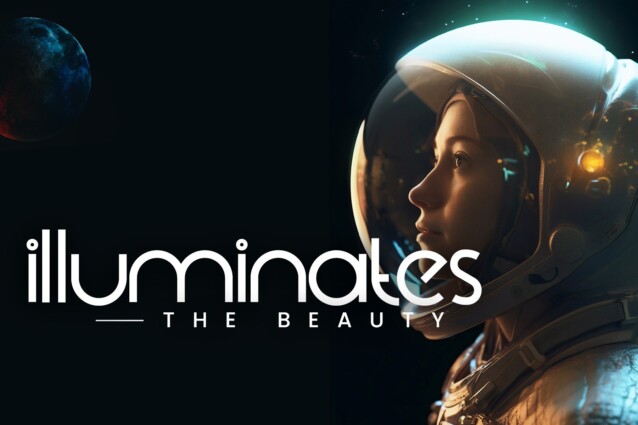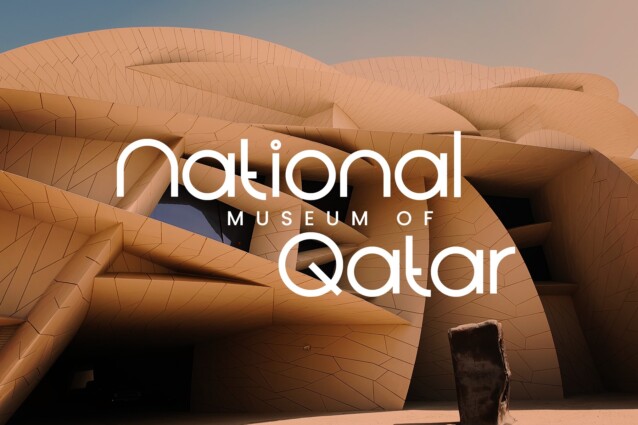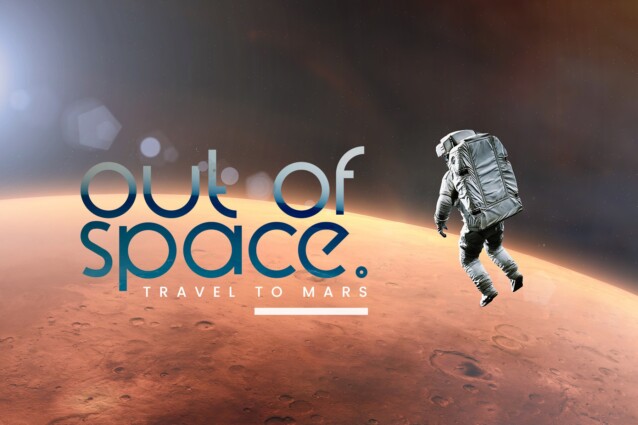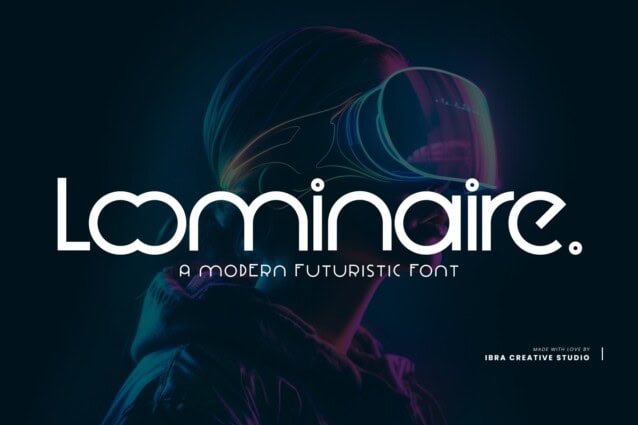
Loominaire Font
Loominaire Font is a sans-based typeface with futuristic hi-tech lowercase & uppercase that will make your design look futuristic and modern. Designed to make your designs stand out and leave a lasting impression, Loominaire brings a touch of sleek sophistication to your creative projects. With its clean lines and geometric precision, Loominaire exudes an aura of futuristic elegance. Each letter is meticulously crafted to create a harmonious balance between contemporary aesthetics and legibility, ensuring that your message is conveyed with clarity and style. This font is perfect for those seeking to add a touch of modernity to their branding, advertisements, websites, posters, and more. Captivate your audience with Loominaire’s versatility, whether you’re creating a high-tech logo, a sci-fi movie poster, or a forward-thinking website interface. Loominaire unleashes your creative potential with its extensive character set, including uppercase and lowercase letters, numerals, punctuation marks, and a variety of special symbols. Its versatility extends beyond the confines of traditional design, allowing you to explore endless possibilities and push the boundaries of visual communication. Embrace the future of typography with Loominaire – a font that bridges the gap between contemporary design and futuristic aesthetics. Let your creativity soar and watch as your designs come to life with a touch of modern elegance. Unlock the power of Loominaire today and revolutionize your creative projects with this extraordinary modern futuristic font.